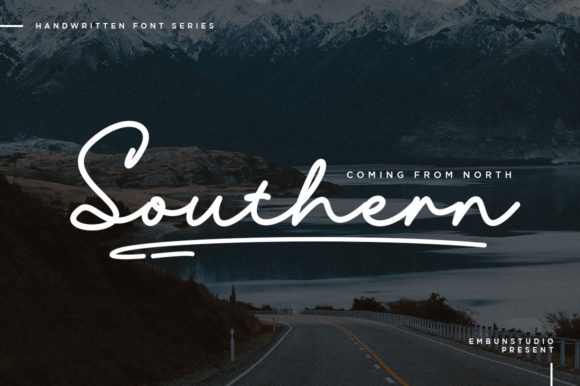
Embark on an extraordinary journey into the realm of handwritten elegance with Southern Font, a captivating script font family meticulously crafted by EmbunStudio. Step into a world where your creative visions are brought to life with the utmost grace and sophistication.
Southern Font is not just a collection of letters; it's an orchestra of flowing strokes and delicate curves that dance harmoniously across the page. Each character is a masterpiece of artistry, imbued with a timeless charm that evokes a sense of enduring beauty. Whether you're a seasoned designer or just starting your creative journey, Southern Font will elevate your projects to new heights.
Imagine your words taking flight, adorned with the exquisite flourishes and swirls of Southern Font. Design wedding invitations that capture the essence of romance and elegance, create logos that exude a timeless allure, or craft social media posts that captivate your audience with their sheer beauty. The possibilities are endless, limited only by your imagination.
With Southern Font, you'll discover a world of versatility that knows no bounds. Its charming personality lends itself effortlessly to a myriad of creative endeavors. Craft heartfelt letters that convey your emotions with a touch of grace, design business cards that leave a lasting impression, or create stunning website designs that captivate visitors at first glance.
Southern Font is a font that speaks to the heart, evoking a sense of nostalgia and wonder. Its timeless appeal transcends trends, ensuring that your creative works will stand the test of time. Embrace the allure of Southern Font and let your imagination soar. Experience the joy of creating designs that resonate with your audience, leaving an enduring legacy of beauty and inspiration.